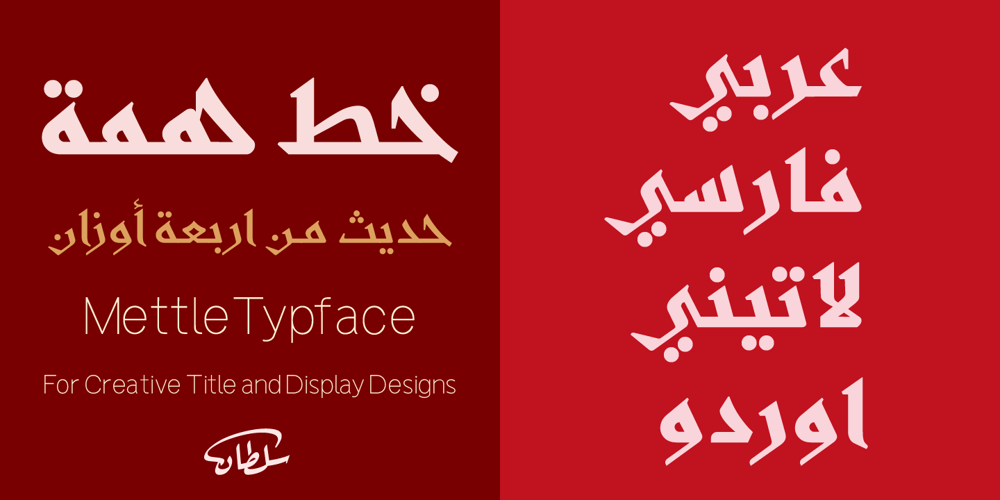
SF Mettle
SF Mettle font
SF Mettle Font Family was designed by Sultan Maqtari and published by Sultan Fonts. SF Mettle contains 4 styles and family package options. MettleBilingual Arabic font, Latin-Arabic for print and web. The Mettle font family contains four weights: Regular, medium, Bold, and Black. This font supports Arabic, Latin, Persian, and Urdu, languages. The digital designer can use the variable Mettle font to access wider options in working with the text.